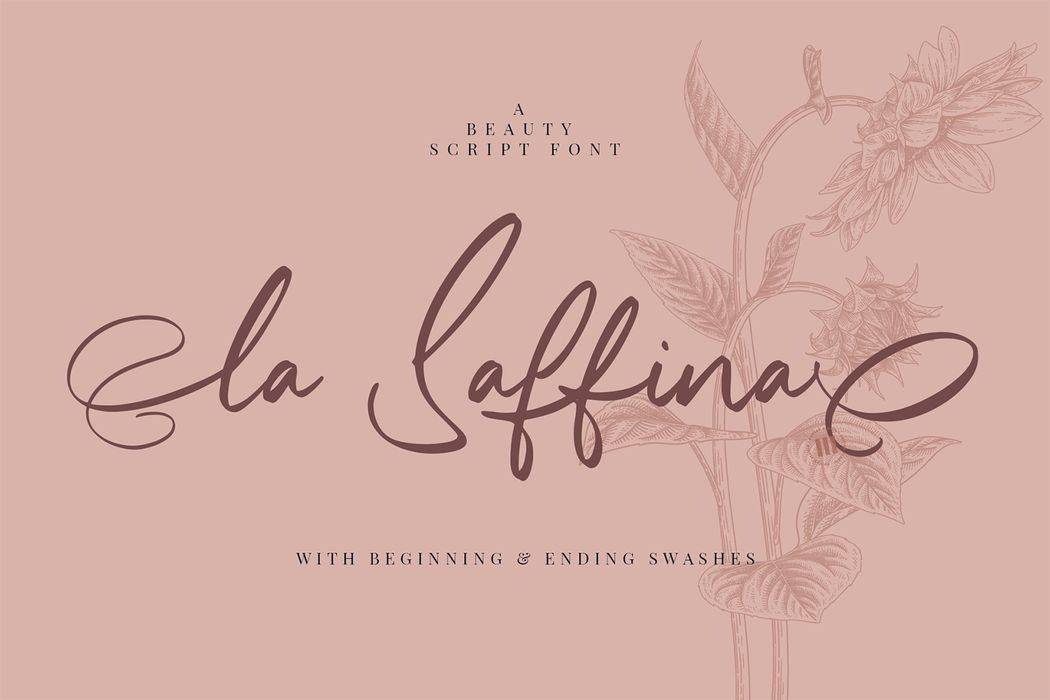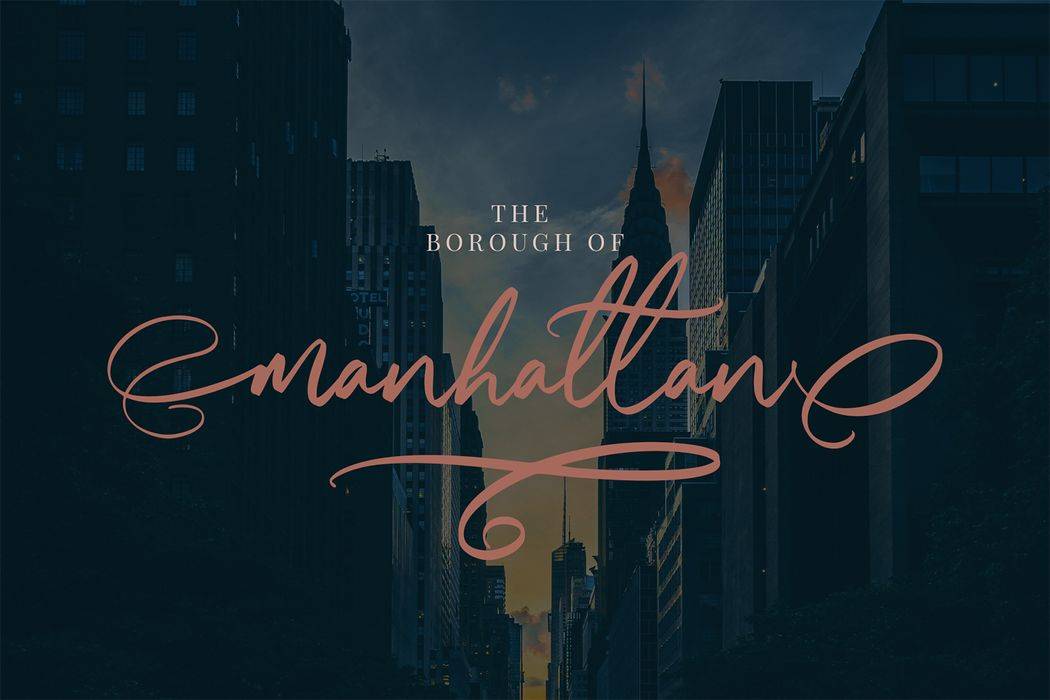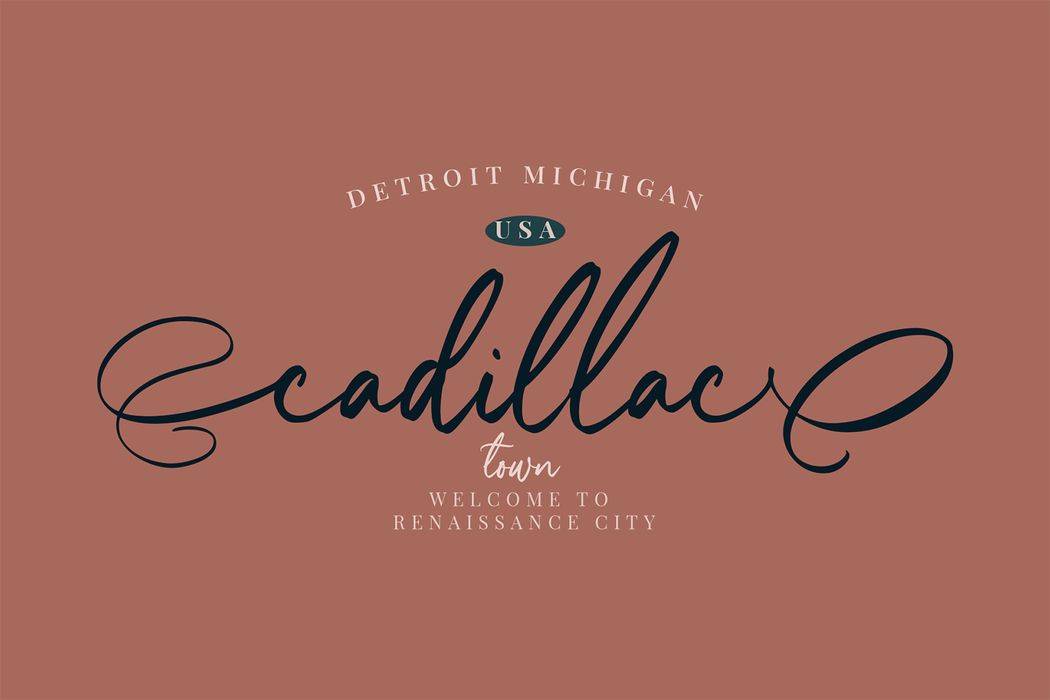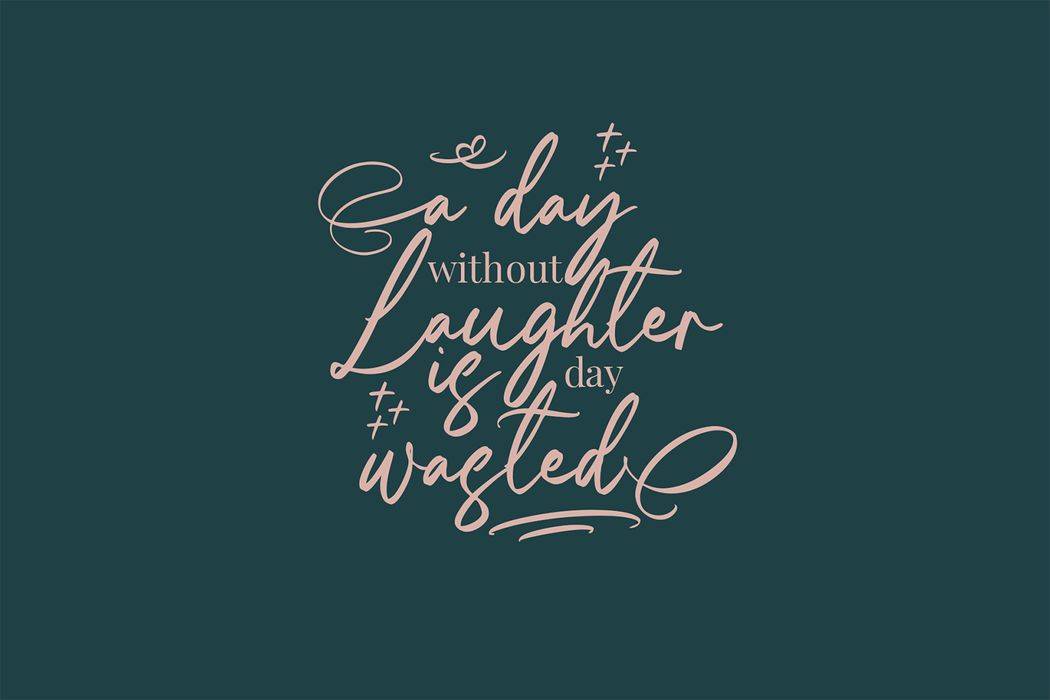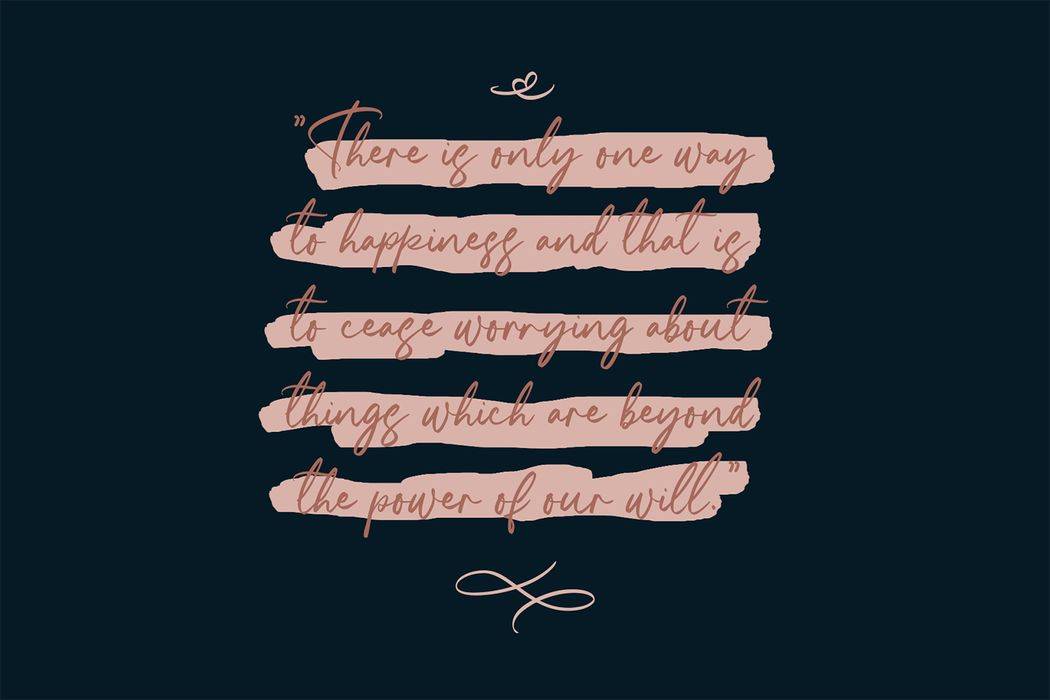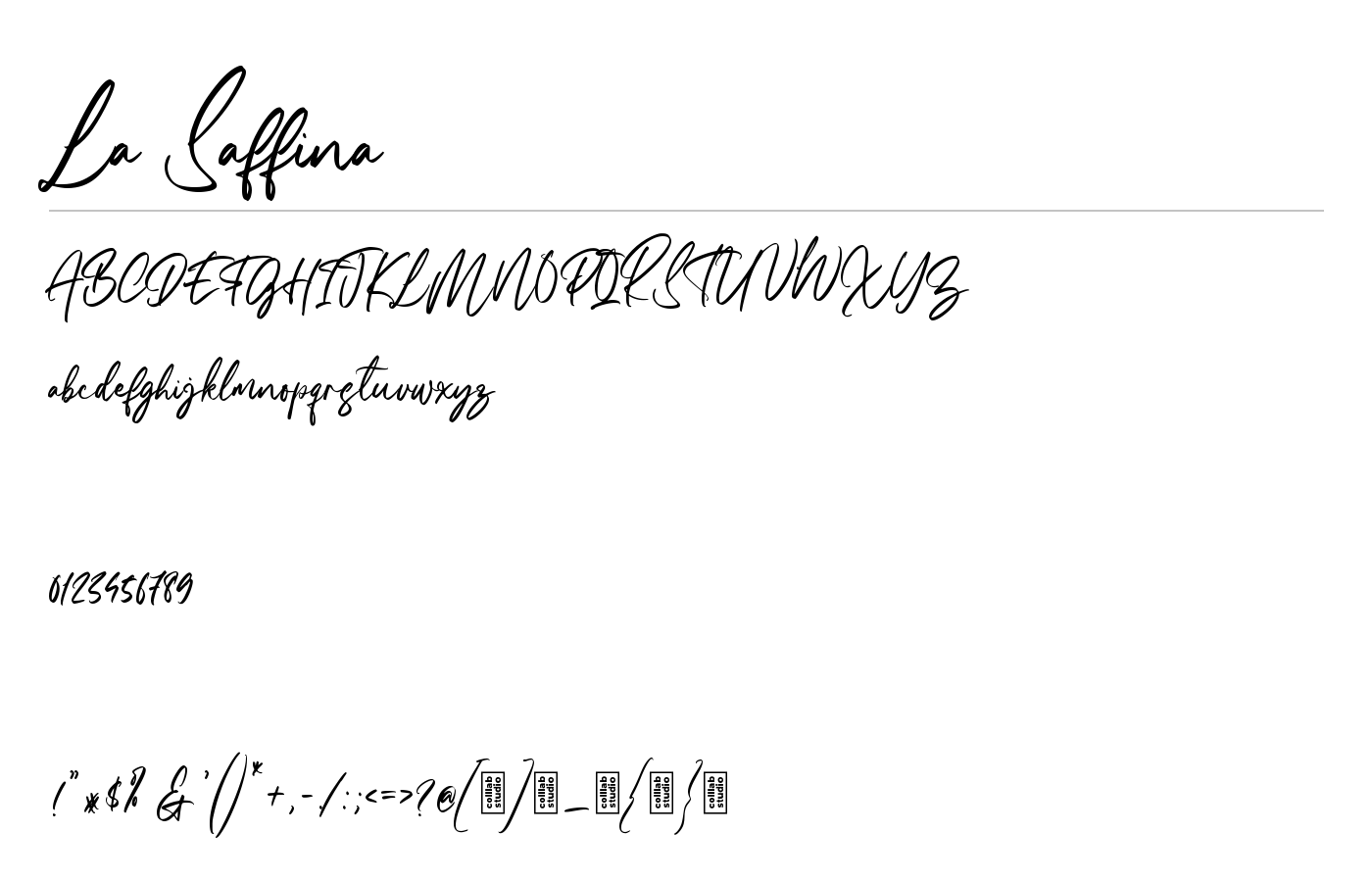
La Saffina is an elegant, flowing script font with a delicate, hand-drawn feel that exudes sophistication and charm. Its tall, slightly condensed letterforms and smooth, varying stroke widths give it a graceful and modern personality, making it perfect for invitations, branding, and decorative headlines where a personal yet refined touch is desired. This font works beautifully in projects aiming for a stylish, artistic, and expressive vibe.
La Saffina Font
About La Saffina Font
| Font family | La Saffina Font |
| Release date | 2020-09-24 |
| Designer | Colllab Studio |